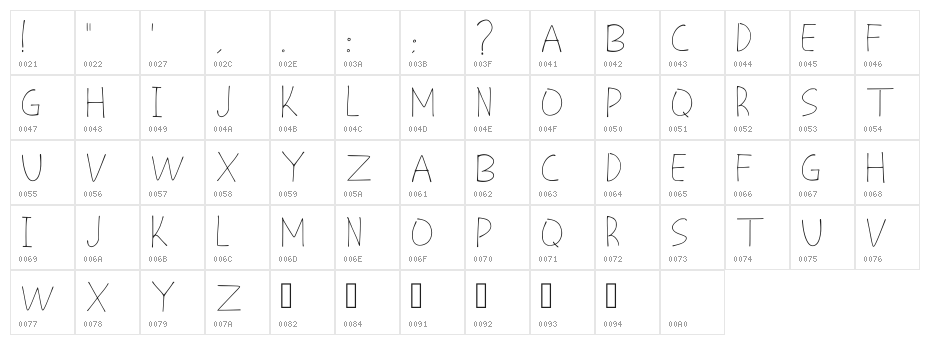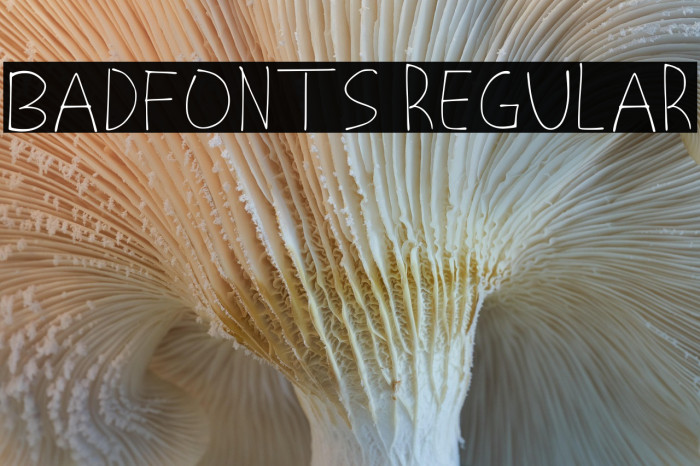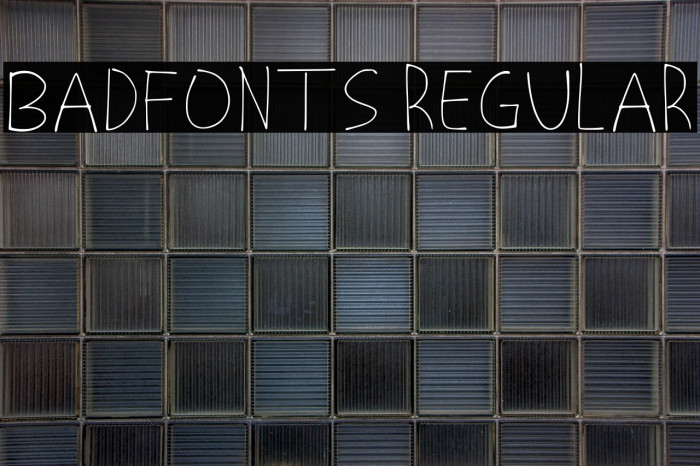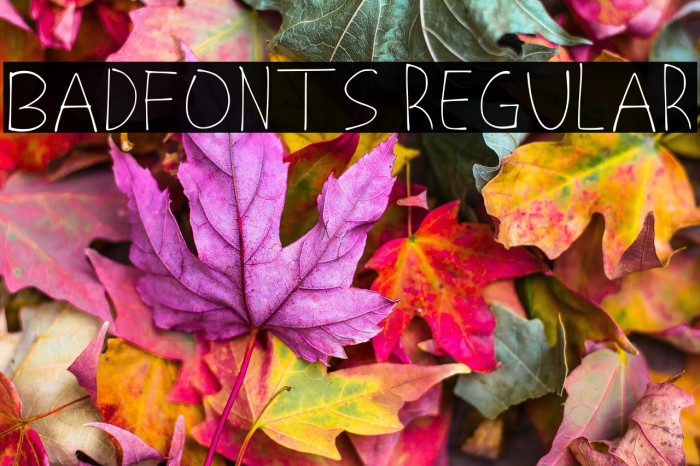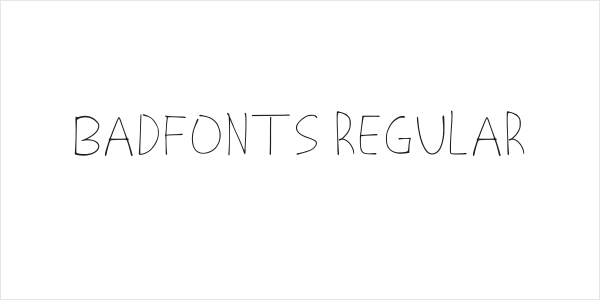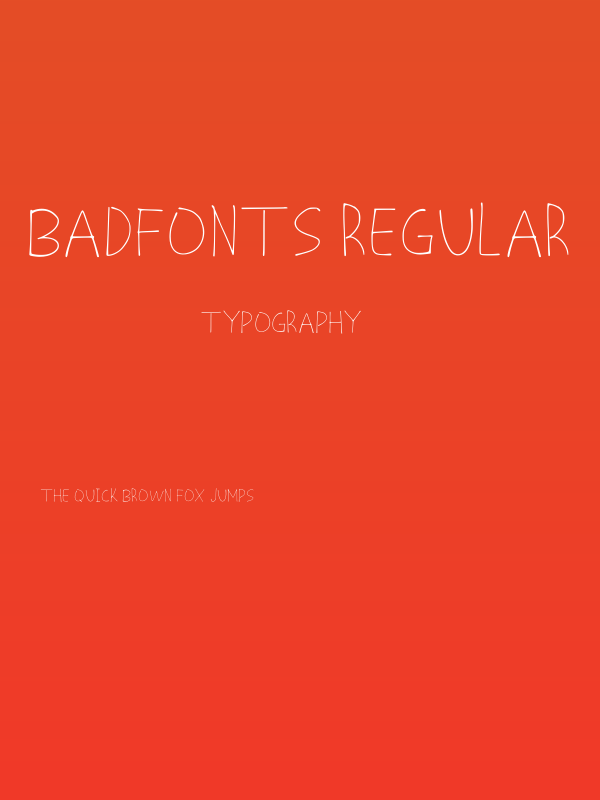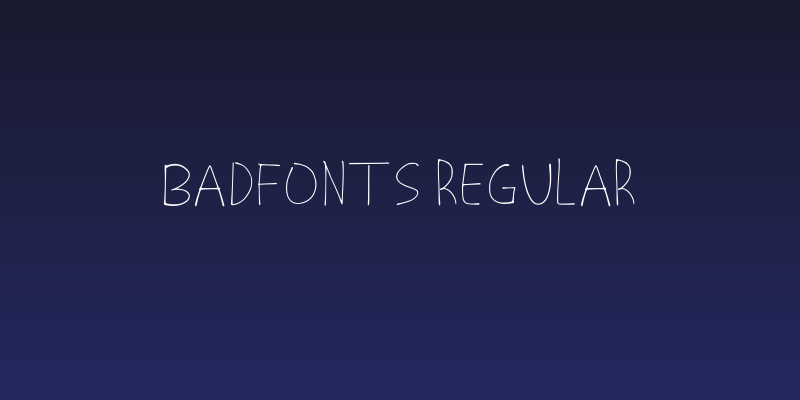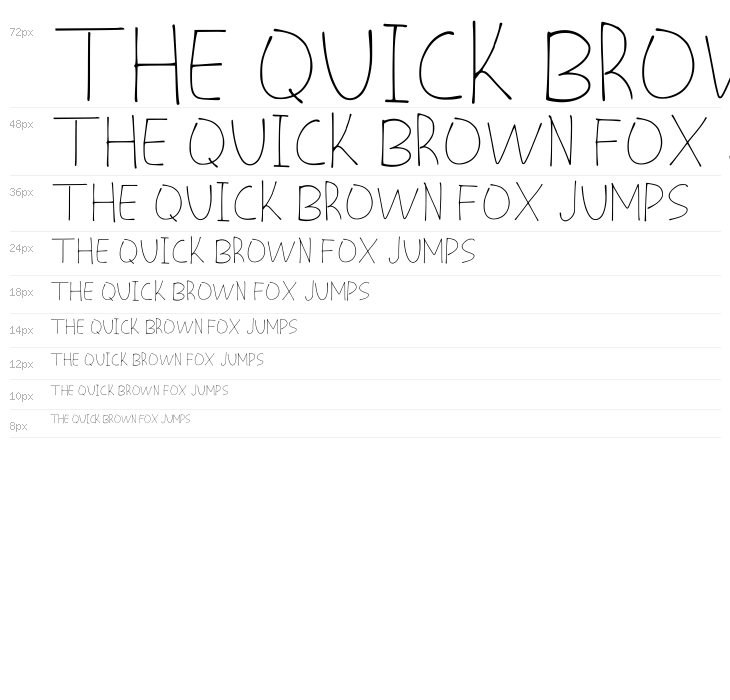
Badfonts Regular Font
Badfonts Regular Description
A playful, handwritten font with irregular strokes and a casual appearance.
| Use Case | Headlines, Informal text |
| Proposed Projects | Greeting cards, casual invitations, children's books. |